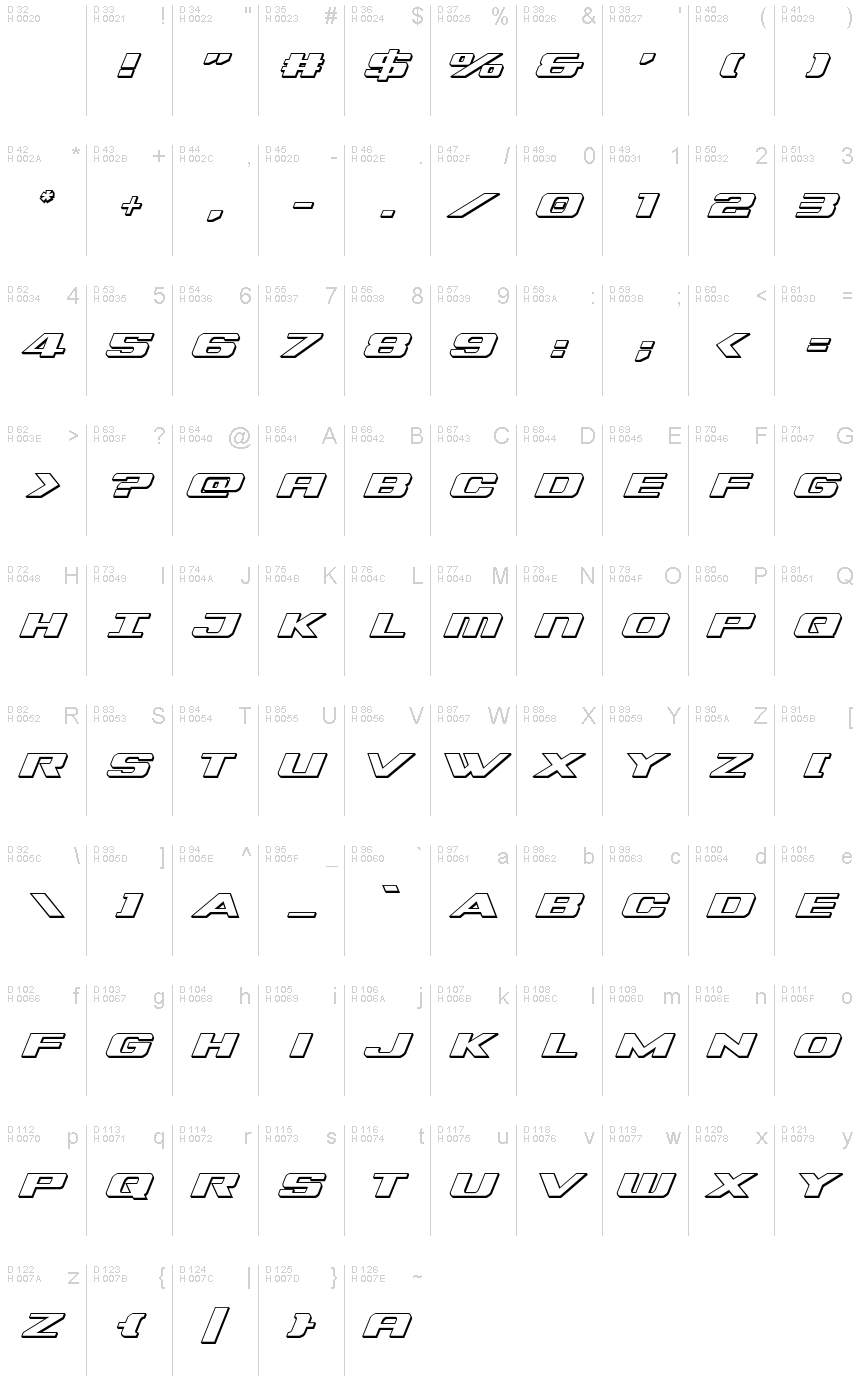
Tigershark 3D Italic, created by Iconian Fonts in 2024, is a free modern 3D display font with a pronounced forward slant. Broad, squared capitals combine clipped curves with sharp joins and recall racing graphics. An offset lower edge adds depth without softening the taut silhouette.
Motorsport and futuristic technology are its clearest territory, making it suited to racing posters, esports branding, and game title cards. Its aggressive geometry will speak most directly to audiences drawn to vehicle culture and competitive gaming merchandise.